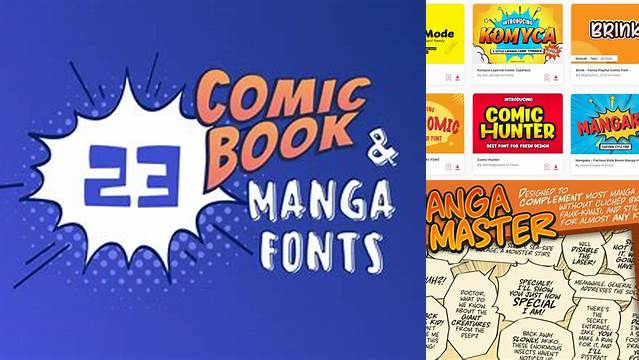
Top Manga Fonts: Guide For Comic Creators
Creating a manga that truly captivates readers goes beyond just compelling storylines and dynamic characters; the visual presentation, particularly the fonts used, plays a crucial role. Choosing the right fonts can significantly enhance the reading experience, conveying the tone, emotions, and personality of your characters and story. So, guys, if you're diving into the world of manga creation or just looking to level up your comic art, understanding the most used manga fonts is essential. Let's jump into the wonderful world of manga typography and discover how to make your panels pop!
Understanding the Importance of Fonts in Manga
When it comes to manga, fonts aren't just about readability; they're about storytelling. The fonts you select act as a visual voice for your characters, adding layers of meaning to the dialogue and narrative. A bold, blocky font can convey strength and aggression, while a soft, rounded font might suggest gentleness or innocence. Using the wrong font can disrupt the reader's immersion, while the right font can amplify the emotional impact of a scene. Think of it like this: the font is the soundtrack to your manga, setting the mood and guiding the reader's emotional journey. To effectively use manga fonts, you need to understand how they communicate beyond the words themselves. Consider the genre of your manga – is it a light-hearted comedy, a gritty action story, or a poignant romance? The font style should align with the overall tone and atmosphere you're aiming to create. For instance, a horror manga might benefit from jagged, unsettling fonts, while a slice-of-life story might call for cleaner, more approachable options. Beyond genre, think about individual characters and their personalities. A gruff, no-nonsense character might have dialogue rendered in a bold, sans-serif font, while a whimsical, dreamy character might use a more flowing, handwritten style. Consistency is key, but don't be afraid to vary fonts to differentiate characters and emphasize specific emotions or moments. Experiment with different font weights, sizes, and styles to find what best captures the essence of your story and characters. Remember, the goal is to create a seamless reading experience where the font enhances, rather than distracts from, the narrative. By paying close attention to font selection, you can elevate your manga from good to great, leaving a lasting impression on your readers.
Popular Manga Fonts for Dialogue
Choosing the right manga fonts for dialogue is crucial for readability and conveying character personalities. When your characters speak, the font is their voice, and you want to make sure it resonates with your audience. Several fonts are particularly popular in the manga world for their clarity and ability to express a range of emotions. One commonly used option is the classic Maru Gothic, known for its round, friendly appearance. It’s a great choice for light-hearted or comedic scenes, lending a sense of approachability to the dialogue. Characters who are kind, cheerful, or slightly naive might have their speech rendered in Maru Gothic. On the other hand, for more serious or dramatic moments, a bold sans-serif font like Shin Go is often preferred. Its clean lines and strong presence make it ideal for conveying power, determination, or even anger. Characters who are leaders, fighters, or simply have a strong will might have their lines in Shin Go. Another popular option is a handwritten-style font, which can add a personal touch to the dialogue. These fonts, with their varying line weights and natural feel, are perfect for conveying emotions like sadness, confusion, or even excitement. They can make the characters feel more relatable and human, drawing the reader deeper into the story. However, it's important to use handwritten fonts sparingly, as too much can make the text difficult to read. When selecting a dialogue font, consider the character's personality, the tone of the scene, and the overall style of your manga. Experiment with different options to find the perfect fit, and always prioritize readability. After all, the most beautiful font is useless if your readers can't easily decipher the words. Think about how the font interacts with the artwork and the panel layout. Does it complement the visual style, or does it clash? Does it fit comfortably within the speech bubble, or does it feel cramped? By paying attention to these details, you can ensure that your dialogue not only sounds great but also looks great on the page.
Fonts for Sound Effects in Manga
Sound effects, or onomatopoeia, are a cornerstone of manga storytelling, and the fonts you use to render them can dramatically impact the reading experience. Unlike dialogue, sound effects aren't about conveying character personalities; they're about bringing the world of your manga to life with auditory sensations. The right font can make a crash sound thunderous, a whisper sound delicate, and a splash sound… well, splashy! One of the most common approaches to sound effect fonts is to choose options that visually mimic the sound they represent. For example, a loud, explosive sound like